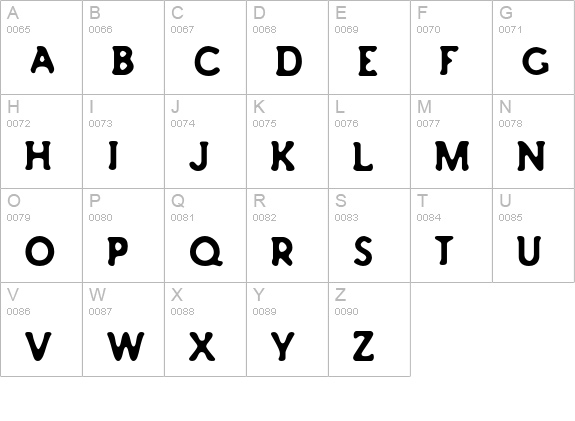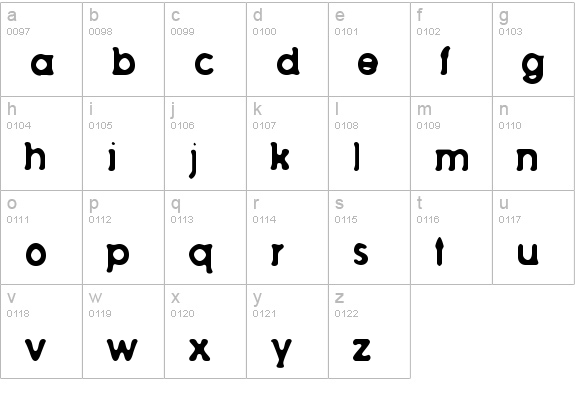
AchillesBlur-Regular Font Details
AchillesBlur-Regular is the standard, neutral variant in the AchillesBlur typeface family \xE2\x80\x94 well suited to general body text, paragraphs, and standard typographic work.
AchillesBlur-Regular is a bold and stylish font that exudes a sense of strength and modernity. With its sleek lines and confident appearance, this versatile typeface is perfect for a wide range of design projects, from branding to marketing materials. The unique blur effect adds a touch of dynamism and creativity to any text, making it stand out in a crowded digital landscape. What makes AchillesBlur-Regular even more appealing is that it is available for free download at FontsMarket.com. This means that designers and creatives can easily access this eye-catching font without any cost, allowing them to elevate their designs without breaking the bank. Whether you're working on a personal project or a professional client commission, AchillesBlur-Regular is a fantastic choice that will help you make a bold statement with your typography.